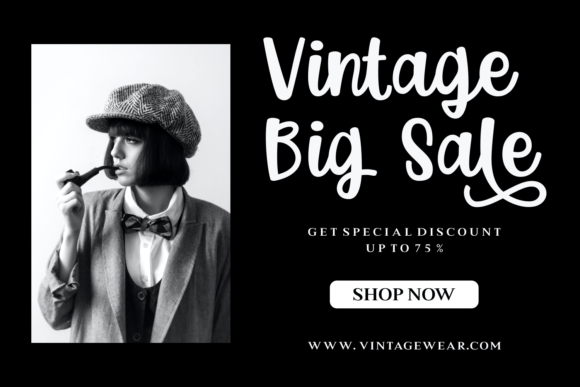
Baby Mellisa Font
“Baby Mellisa” is a charming handwritten font that exudes adorable sweetness. Its delicate curves and playful strokes capture the essence of innocence and joy, making it perfect for adding a touch of whimsy to your projects. Whether you’re crafting invitations, creating heartfelt notes, or designing cute labels, Baby Mellisa adds a delightful and endearing flair that brings a smile to any text.